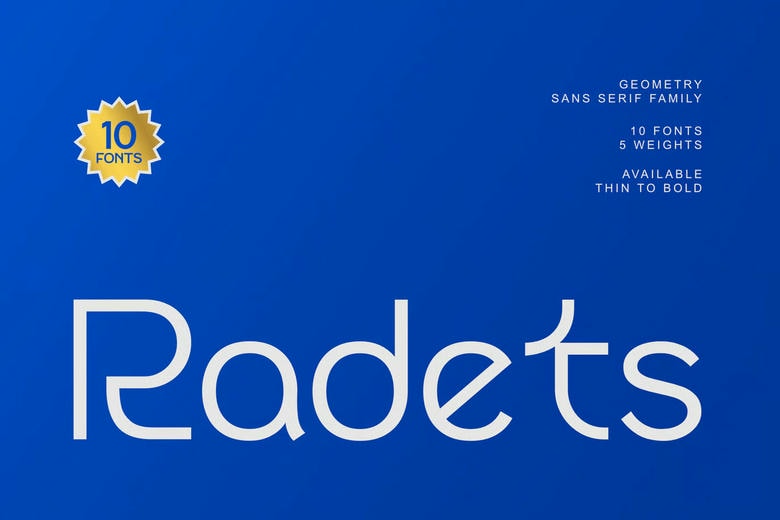
Radets Font
Radets is a geometric sans serif family that was created to strike a balance between the simplicity of modernity and the functionality of the font. Its precise letterforms, straight sides and proportions make Radets add the proper amount of professionalism and classicism to artistic output.
Radets comes in every type of thin to bold weight and will enable you to produce light minimal designs as well as bold and striking images. The geometric design of it makes it an ideal option in contemporary branding, logos, editorial design, packaging, and web design that require clean and beautiful typography.
Radets Sans Serif Font Family